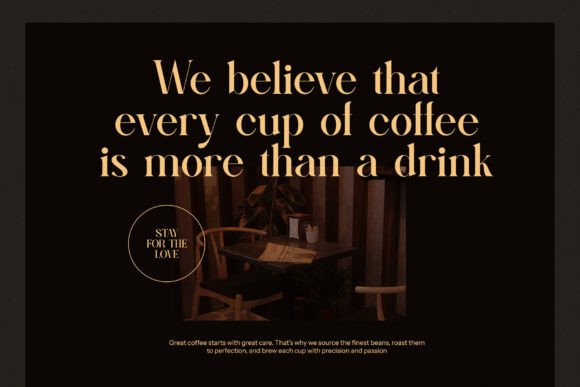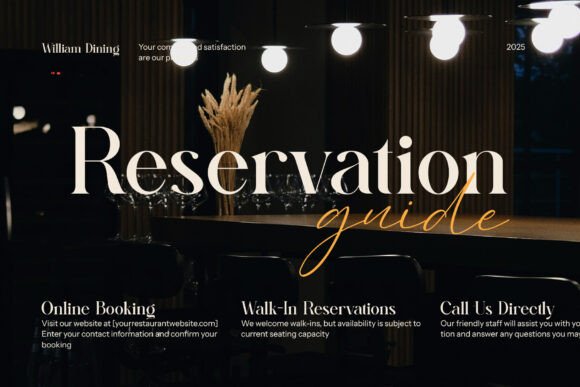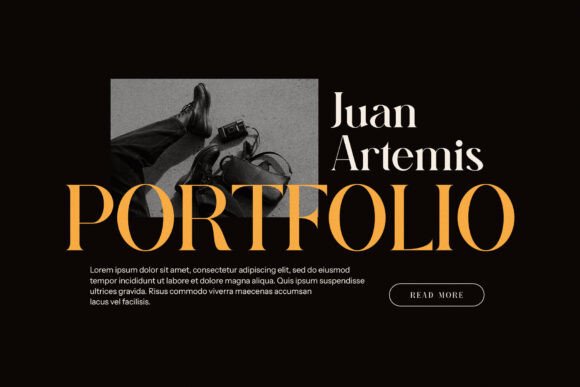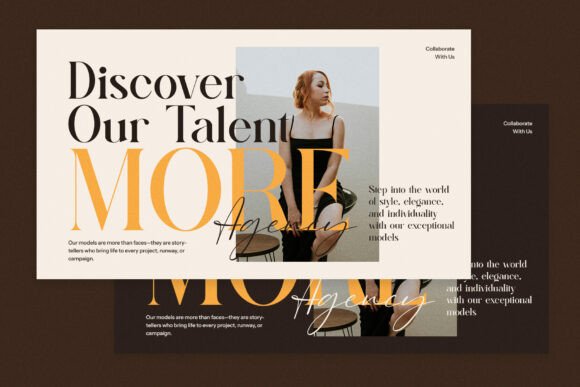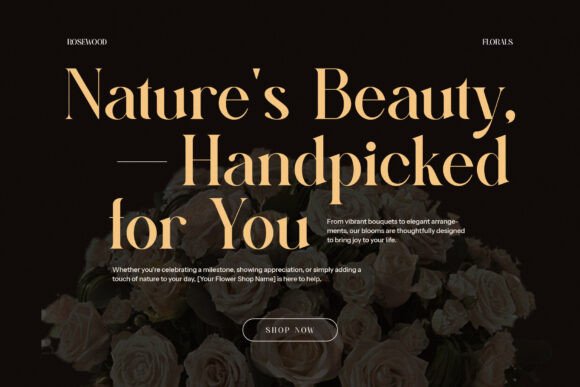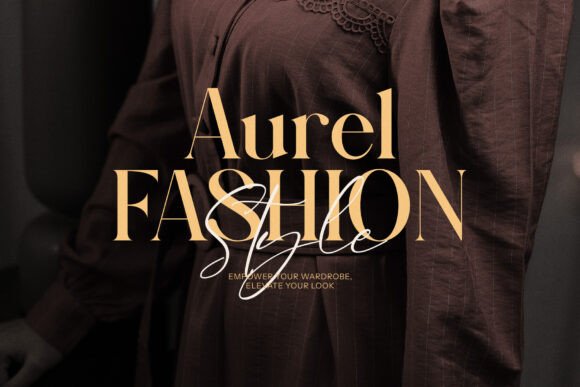
The Perfect Blend of Classic Elegance and Contemporary Style
As a designer, you’ve likely experienced that moment when the perfect font suddenly pops into your mind, instantly elevating your project from good to great. For us, that moment often comes when we’re working on a high-end branding project and need a typeface that exudes luxury and sophistication. That’s when we turn to the Bager Newton Font – a modern masterpiece designed to bring an elevated touch to any project.
With its sleek serif details, harmonious proportions, and artistic ligatures, the Bager Newton Font creates a seamless blend of classic elegance and contemporary style. This thoughtful design allows for personalized expressions, making it a perfect fit for projects that demand originality and impact. Whether you’re crafting memorable logos, upscale product packaging, or refined advertising campaigns, the Bager Newton Font is sure to make a lasting impression.
As a valuable addition to any designer’s toolkit, the Bager Newton Font offers the perfect balance of visual appeal and readability, making it equally suited for digital applications such as websites, social media graphics, and editorial layouts in magazines or brochures.
- Unique Characteristics: Distinctive, elegant script font with a mix of modern and classic elements, ideal for invitations, logos, and titles
Bager Newton Font Review
I recently had the chance to work with the Bager Newton Font, and I’m here to share my honest thoughts on this font.
- ✨ Beautifully crafted letters: The Bager Newton Font features elegant, intricate designs that catch the eye. The rounded edges and subtle flourishes give it a sophisticated feel.
- ✨ Versatile: I found this font to be quite versatile, suitable for a wide range of projects, from headings to body text.
- ✨ Great for creative projects: The Bager Newton Font has a unique, artistic feel that makes it perfect for creative projects, like branding, logos, or packaging design.
- ⚠️ Limited legibility: While the font is aesthetically pleasing, it can be difficult to read at smaller sizes or in certain contexts. This may limit its use in body text.
- ⚠️ Not suitable for all audiences: The Bager Newton Font has a distinctive, artistic feel that may not appeal to everyone. It’s best suited for projects where a more creative, eye-catching design is desired.
Overall, I think the Bager Newton Font is a great choice for designers looking for a unique, artistic font. However, it may not be the best option for projects where legibility is a top priority.
Use the Bager Newton font to create visually appealing headings and titles.
Use it in combination with other fonts to create a unique and engaging design.
Experiment with different font sizes and styles to create a sense of hierarchy and emphasis.
Use the Bager Newton font for:
– Headings and titles
– Logos and branding
– Menus and navigation
Comparison to Bager Newton Font: While Bager Newton Font is a more modern and edgy script font, Great Vibes Font is more classic and refined. Great Vibes Font is better suited for formal and high-end designs, while Bager Newton Font is more versatile and can be used in a variety of contexts.
Comparison to Bager Newton Font: Like Great Vibes Font, Alex Brush Font is more classic and refined than Bager Newton Font. However, Alex Brush Font has a more subtle and understated feel, making it a good choice for designs where you want to create a sense of calm and serenity.